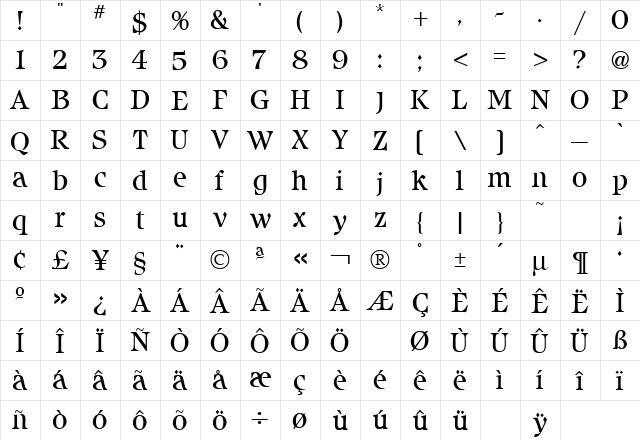
Isbell Regular Font Preview
Isbell Regular
Design Context for Isbell Typeface
Isbell offers clean, dependable letterforms without strong stylistic allegiance, making it a practical choice for designers who need flexibility.